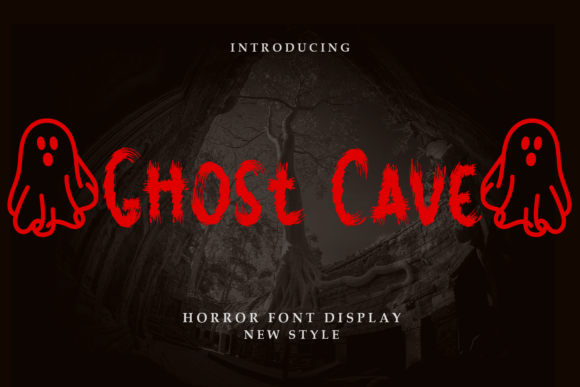
Ghost Cave Font: A Hauntingly Effective Display Typeface
It started with a blank brand board and a client who described their new handmade ceramics studio as “quiet, grounded, and quietly magical.” No loud slogans. No neon energy. Just earthy textures, soft glazes, and a sense of calm mystery—like stepping into a sunlit cave where light catches dust motes in the air. I knew right away that the typography would need to carry weight without shouting. That’s when I opened Ghost Cave.
Ghost Cave isn’t your typical display font. It doesn’t rely on sharp angles or exaggerated contrast to grab attention. Instead, it leans into atmosphere—ethereal curves, subtle shadowing along letterforms, and a gentle asymmetry that feels hand-carved rather than digitally rendered. The lowercase ‘a’ has a hollowed-out bowl; the ‘g’ dips low with a whisper-thin tail; the uppercase ‘S’ flows like smoke caught mid-drift. It’s not spooky—it’s still. Not eerie, but deeply evocative.
I dropped Ghost Cave into the first logo mockup alongside a simple line-drawn clay vessel icon. Instantly, the pairing felt intentional—not decorative, but conversational. The font didn’t compete with the mark; it deepened its tone. For this project, we used Ghost Cave strictly as a display typeface: for the studio name on signage, business cards, and the homepage hero banner. We kept body text in a warm, highly legible serif—something with open counters and generous x-height, like a well-spaced Garamond revival. That contrast worked beautifully: Ghost Cave set the mood, the serif carried the message.
On physical materials, Ghost Cave held up better than I expected. Printed at 24pt on uncoated matte cardstock? Crisp. Laser-etched onto a ceramic coaster prototype? Surprisingly elegant—the slight irregularity in stroke weight echoed the handmade quality of the product itself. Even on a small sticker label (1.5” wide), the font remained legible and distinctive—though only for the studio name, never for ingredients or care instructions. That’s key: Ghost Cave is a display font through and through. It’s not built for paragraphs, captions, or fine print. Use it where you want pause, presence, and personality.
We tested it across formats: a black-and-white Instagram post announcing the studio’s opening (Ghost Cave for the headline, clean sans-serif for the date and location); a folded A5 flyer with a photo of raw clay coils (the font layered softly over the image, its shadow effect adding depth without obscuring texture); even a subtle watermark on digital press kits. In every case, it reinforced the brand’s quiet confidence—not theatrical, but memorable.
One thing I appreciated early on was how Ghost Cave avoids cliché. So many “mystical” fonts go full fantasy—swirling flourishes, faux-medieval ligatures, or overly distressed edges. Ghost Cave stays refined. Its subtlety makes it versatile for creative studios, botanical skincare lines, indie bookshops, or even a slow-food restaurant with a focus on local terroir. It doesn’t scream “witchy” or “gothic”—it whispers “thoughtful.” That nuance matters when building a brand identity meant to last beyond seasonal trends.
Before locking it into the final system, I ran three quick checks: First, I exported a few glyphs into Illustrator and nudged spacing manually—Ghost Cave’s default tracking works well for headlines, but tighter kerning helped the studio name feel cohesive at smaller sizes. Second, I previewed all included weights (Light, Regular, Bold) and alternates. The Bold holds its shape beautifully at large sizes, while the Light version adds delicate contrast in editorial layouts—say, a quote pull-out in a printed lookbook. Third, I confirmed commercial licensing covered both web embedding (via @font-face) and unlimited print runs. No surprises there—it’s a fully licensed premium font, delivered in OTF and WOFF2, with multilingual Latin support (including accented characters for French and Spanish names).
Pairing Ghost Cave thoughtfully is part of the craft. With serifs, lean into warmth and structure—not too calligraphic, not too rigid. A sturdy, slightly condensed serif gives Ghost Cave room to breathe while grounding the hierarchy. With sans serifs, choose humanist styles over geometric ones; something like Nunito or Lato adds friendliness without diluting the mood. Avoid pairing it with scripts or handwritten fonts—they clash tonally. Ghost Cave already carries expressive gesture; adding another voice muddies the intent.
In web design, it shines in hero sections, testimonial headers, and section dividers—but always as CSS-loaded headings, never as body copy. I used it for an with a subtle text-shadow that echoed its natural depth, then dropped back to a system font stack for everything else. On mobile, we swapped to the serif at smaller breakpoints—prioritizing readability over atmosphere where space is tight.
What surprised me most wasn’t how well Ghost Cave performed in high-impact moments, but how quietly effective it was in consistency. Seeing the same delicate ‘R’ curve repeated across a shop sign, a receipt stamp, and a thank-you note created a thread of cohesion no color palette alone could achieve. It became a signature detail—not flashy, but unmistakably *them*.
If you’re evaluating Ghost Cave for your next branding project, start small: drop it into one high-visibility element first—a logo lockup, a poster headline, a product label. Test it at actual size, on actual material, under real lighting. See how it behaves beside your supporting typefaces. Does it elevate—or does it distract? With Ghost Cave, the power lies in restraint. Let it be the hush before the sentence begins. Let it be the cave entrance—not the whole journey.
It’s not for every brand. But for the right one—grounded, atmospheric, and intentionally quiet—it’s a display font that doesn’t just sit on the page. It settles into memory.